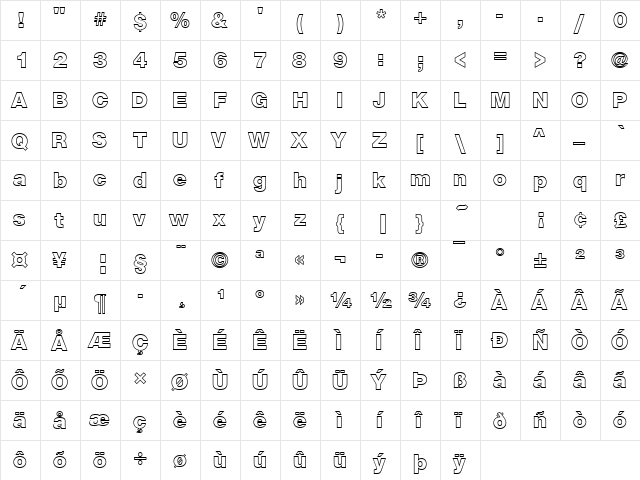
NimbusSanNovOutDBla Regular
Design Context for NimbusSanNovOutDBla Typeface
NimbusSanNovOutDBla takes a measured approach to typography — its balanced proportions and neutral character make it a reliable workhorse for both digital and print work.